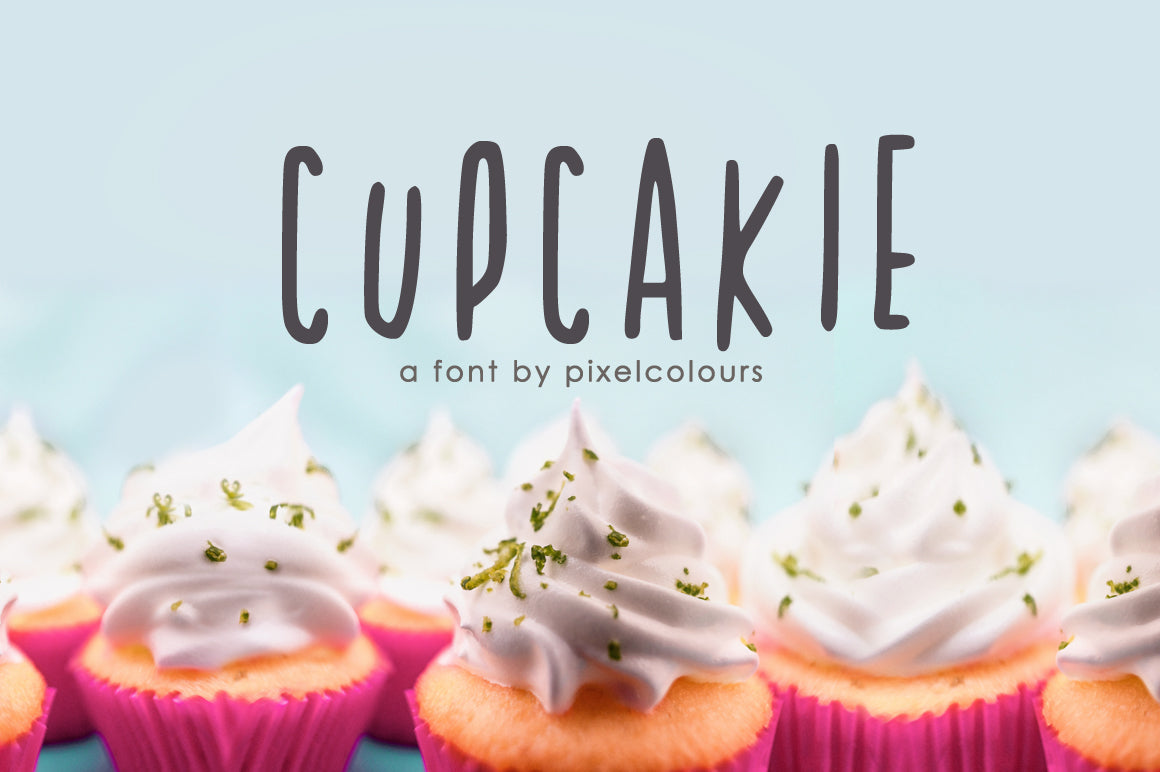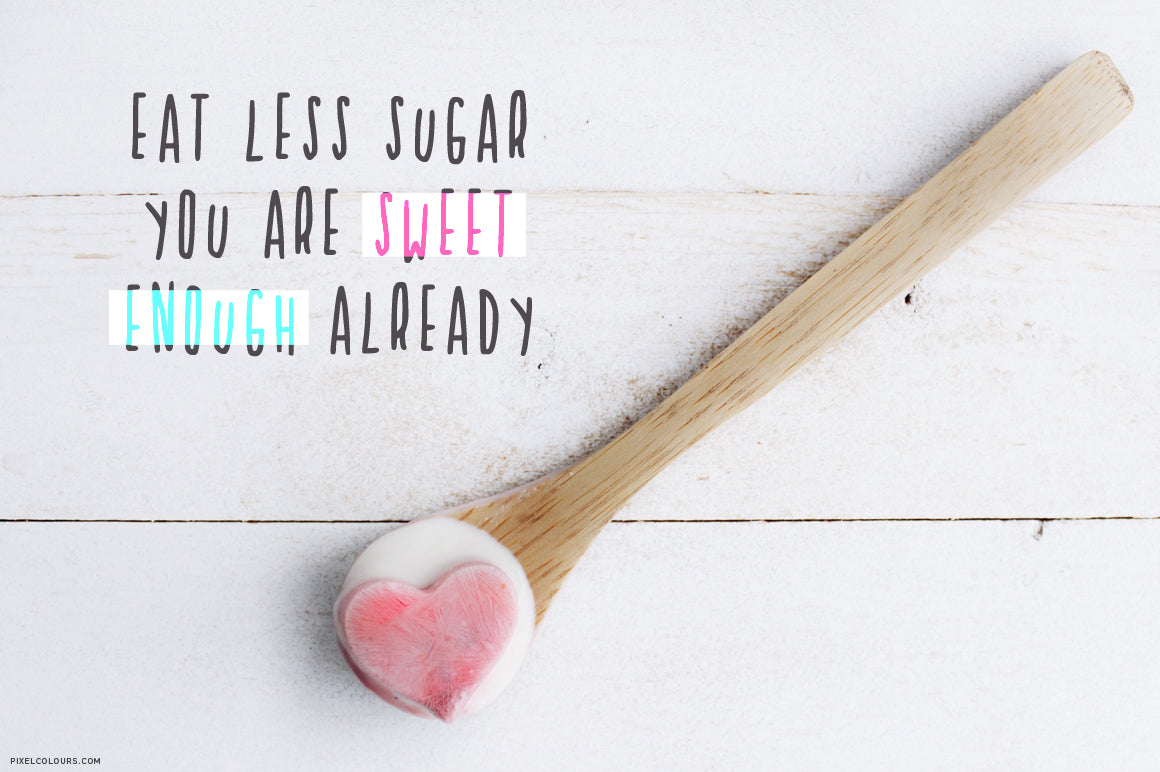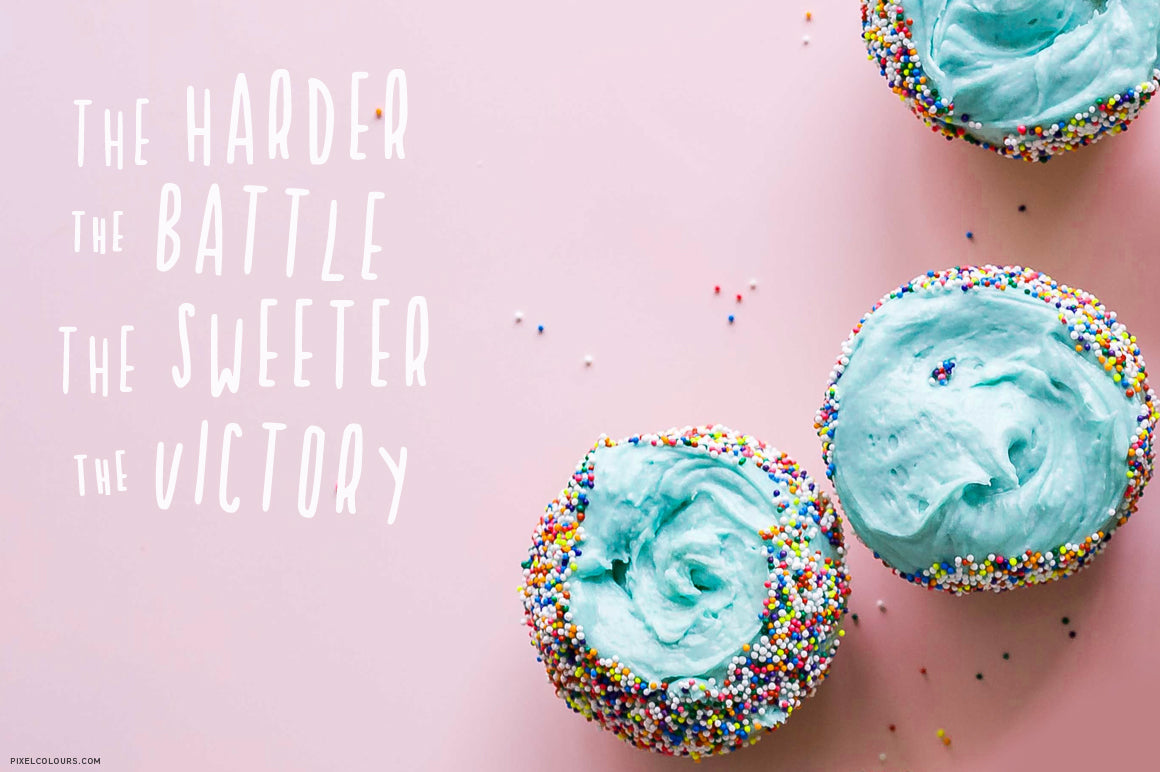
Free Cupcakie Font
Cupcakie is a cute uppercase font with a fun, bouncy baseline that brings a playful energy to your designs. Its quirky shape and bold character make it ideal for fancy text, standout quotes, and cheerful design projects. This handwritten font adds personality without being too formal — just the right mix of sweet and bold.
Whether you’re creating content for social media, packaging, or digital prints, Cupcakie is a free design resource that brings charm to both personal and commercial projects.
Ideas for use
- Instagram or Pinterest quotes
- Birthday cards, stickers, or gift tags
- Playful branding for kids or lifestyle brands
- T-shirt designs, mugs, or tote bags
- Headlines or fancy text overlays on photos